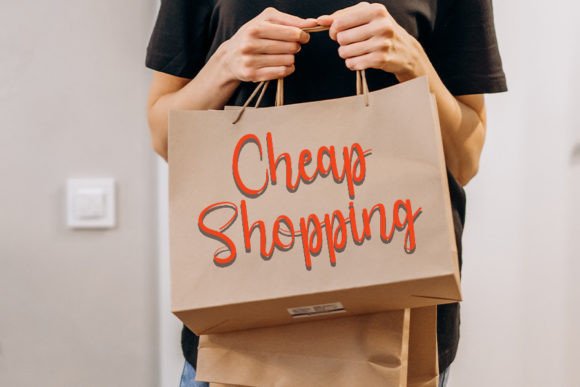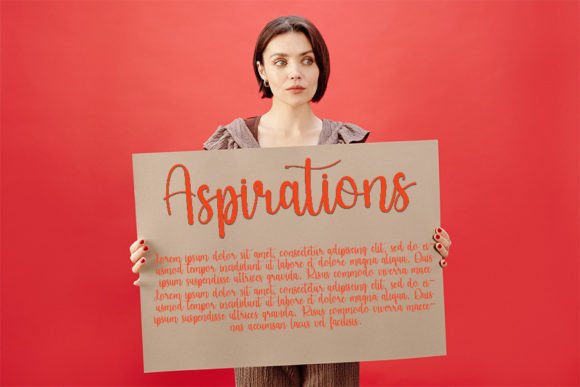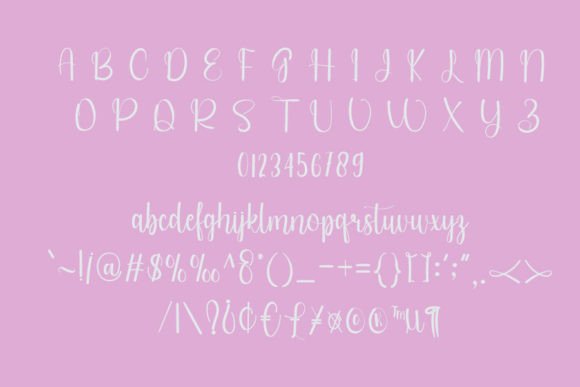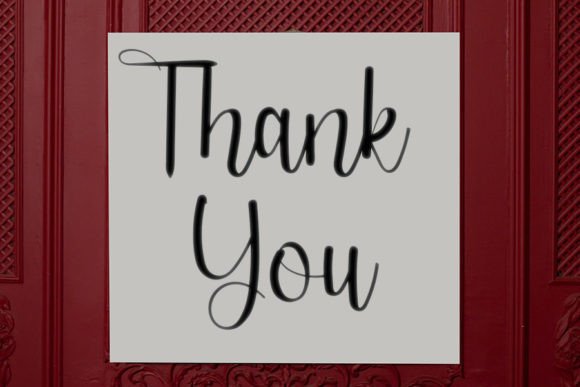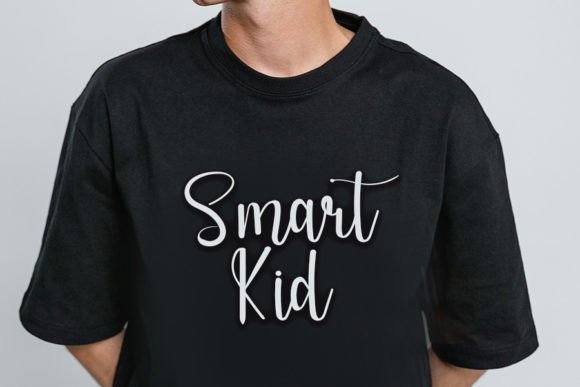
Gabriel Font
About Gabriel Font
Gabriel a cool handwritten font with a modern vibe and spotless form, inspired by classic calligraphy. Not too thin and not too thick, balanced and varied, this font was designed to enhance the beauty of your projects.